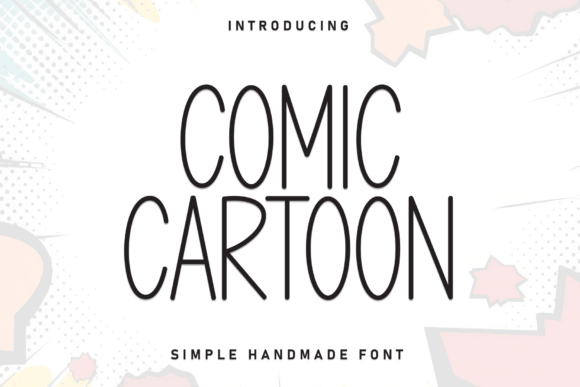
Introducing Comic Cartoon Font: The Perfect Blend of Simplicity and Friendliness
In the world of typography, fonts play a crucial role in conveying the tone and personality of a brand or design. When it comes to creating a friendly and approachable vibe, a well-crafted font can make all the difference. This is where Comic Cartoon Font comes in – a casual and neat display font that combines simplicity with a warm and inviting touch. In this article, we’ll dive into the features and benefits of Comic Cartoon Font, and explore how it can elevate your branding, headlines, packaging, and digital content.
The Essence of Comic Cartoon Font
Comic Cartoon Font is a modern handwritten typography font that boasts clean lines, balanced letterforms, and subtle rounded edges. This unique combination gives the font a polished finish that’s both crisp and charming. The clean lines and balanced letterforms ensure that the font is easy to read, while the subtle rounded edges add a touch of warmth and friendliness. This makes Comic Cartoon Font an ideal choice for designs that require a approachable and inviting tone.
Key Features of Comic Cartoon Font
- Clean Lines: Comic Cartoon Font features clean lines that give it a modern and sleek look. This makes it perfect for designs that require a crisp and contemporary feel.
- Balanced Letterforms: The font’s balanced letterforms ensure that each character is proportionate and harmonious, making it easy to read and visually appealing.
- Subtle Rounded Edges: The subtle rounded edges add a touch of warmth and friendliness to the font, making it perfect for designs that require a approachable tone.
- Polished Finish: The font’s polished finish gives it a refined and sophisticated look that’s perfect for branding, headlines, and packaging.
Uses of Comic Cartoon Font
Comic Cartoon Font is a versatile font that can be used in a variety of design applications. Here are some of the ways you can use this font:
- Branding: Comic Cartoon Font is perfect for branding projects that require a friendly and approachable tone. It can be used to create logos, business cards, and letterheads that reflect your brand’s personality.
- Headlines: The font’s clean lines and bold structure make it ideal for headlines and titles. It can be used to create eye-catching headlines that grab attention and convey your message.
- Packaging: Comic Cartoon Font can be used to create packaging designs that are both functional and visually appealing. It can be used to label products, create packaging inserts, and design point-of-sale displays.
- Digital Content: The font can be used to create digital content such as social media graphics, blog posts, and email newsletters. Its clean lines and readable structure make it perfect for digital designs.
Benefits of Using Comic Cartoon Font
Comic Cartoon Font offers a range of benefits that make it an ideal choice for designers and brands. Here are some of the benefits of using this font:
- Unique and Memorable: Comic Cartoon Font is a unique and memorable font that can help your brand stand out from the competition.
- Easy to Read: The font’s clean lines and balanced letterforms make it easy to read, even at small sizes.
- Versatile: Comic Cartoon Font is a versatile font that can be used in a variety of design applications.
- Time-Saving: The font’s pre-designed characters and ligatures save you time and effort, allowing you to focus on other aspects of your design.
Tips for Using Comic Cartoon Font
Here are some tips for using Comic Cartoon Font effectively:
- Use it for Headlines: Comic Cartoon Font is perfect for headlines and titles. Use it to create eye-catching headlines that grab attention.
- Pair it with Other Fonts: Comic Cartoon Font can be paired with other fonts to create a unique and visually appealing design.
- Experiment with Colors: The font’s clean lines and simple structure make it easy to experiment with different colors and textures.
- Keep it Simple: Comic Cartoon Font is a simple and elegant font. Keep your design simple and avoid clutter to get the most out of this font.
Comic Cartoon Font is a casual and neat display font that combines simplicity with a friendly and approachable vibe. Its clean lines, balanced letterforms, and subtle rounded edges make it perfect for branding, headlines, packaging, and digital content. With its versatile style and polished finish, this font delivers clarity and charm in equal measure. Whether you’re a designer or a brand looking for a unique and memorable font, Comic Cartoon Font is an excellent choice.